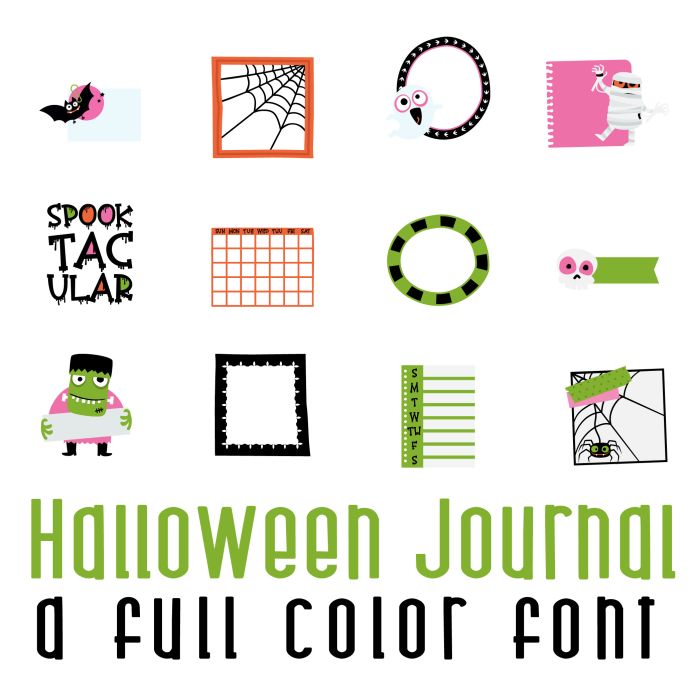
This fun full color font features 26 whimsical Halloween journaling elements perfect for the holiday, gifts, cards, crafts, decor, parties, classrooms, planner stickers, scrap book pages and more!